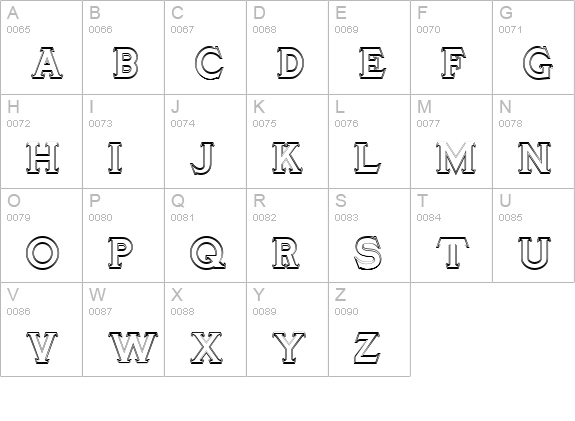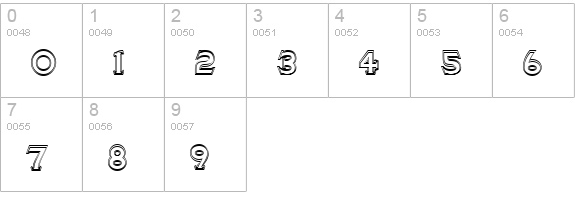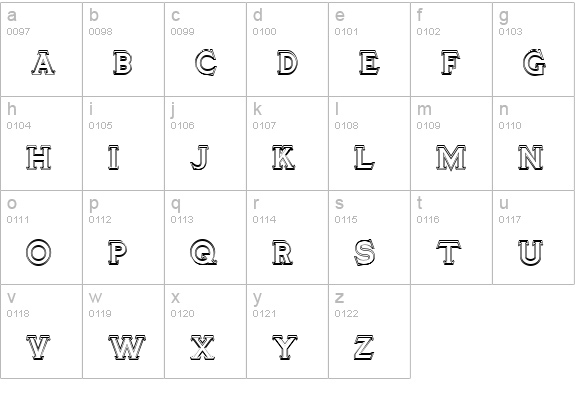
TinplateTitlingDouble Font Details
Introducing TinplateTitlingDouble, a captivating and versatile font that effortlessly combines elegance with a touch of nostalgia. This unique typeface is designed to make a bold statement while evoking a sense of timeless beauty. TinplateTitlingDouble showcases a harmonious blend of classic and modern elements, making it the perfect choice for a wide range of creative projects. Whether you're designing a logo, crafting invitations, or creating eye-catching headlines, this font is sure to leave a lasting impression. With its clean lines and carefully crafted details, TinplateTitlingDouble exudes sophistication and refinement. Each character is meticulously designed to ensure legibility and visual impact, adding an element of luxury to any design. But what makes TinplateTitlingDouble even more remarkable is the fact that it is available for free! That's right, you can download this exceptional font without spending a dime. Simply head over to FontsMarket.com, where you'll find a vast collection of high-quality fonts, including TinplateTitlingDouble, all ready to be downloaded and used in your next creative endeavor. So why wait? Elevate your design projects to new heights with TinplateTitlingDouble. Experience the power of this captivating font and unleash your creativity today.